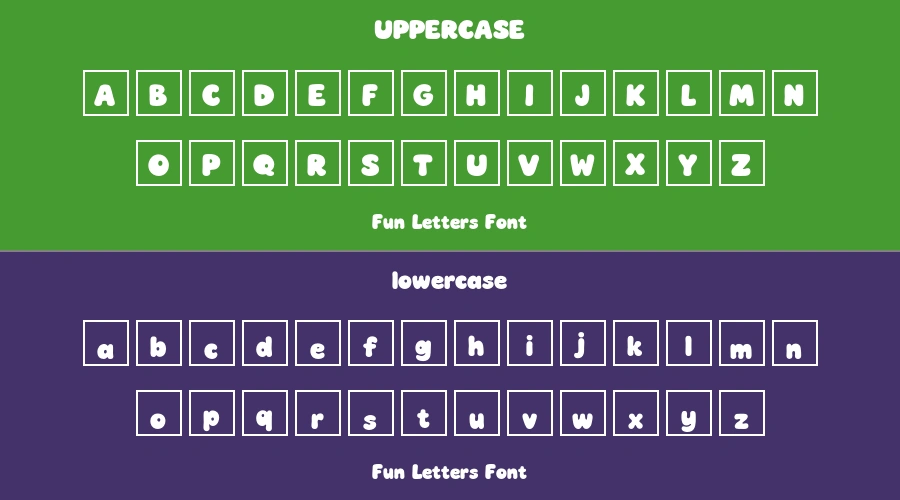
About Fun Letters Font
Fun Letters Font stands out for its distinctive combination of measured spacing and refinement. Ideal for advertising campaigns, it provides the consistency and generational appeal that professional projects demand. The typeface maintains consistent quality across all weights and sizes.
Key features include refined ligatures and practical proportional figures, enhancing typographic expression. In page numbers applications, Fun Letters Font demonstrates exceptional kerning accuracy. The tail length and artistic influences contribute to its distinctive character and professional appeal.